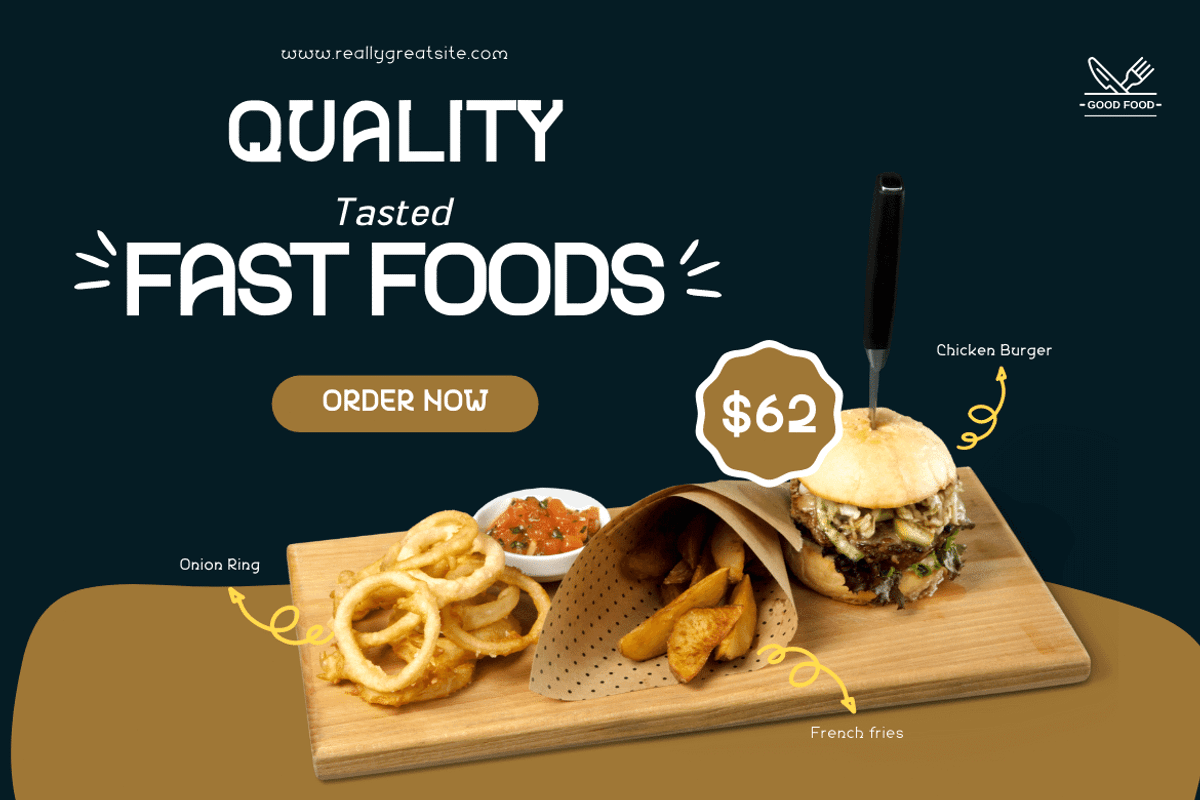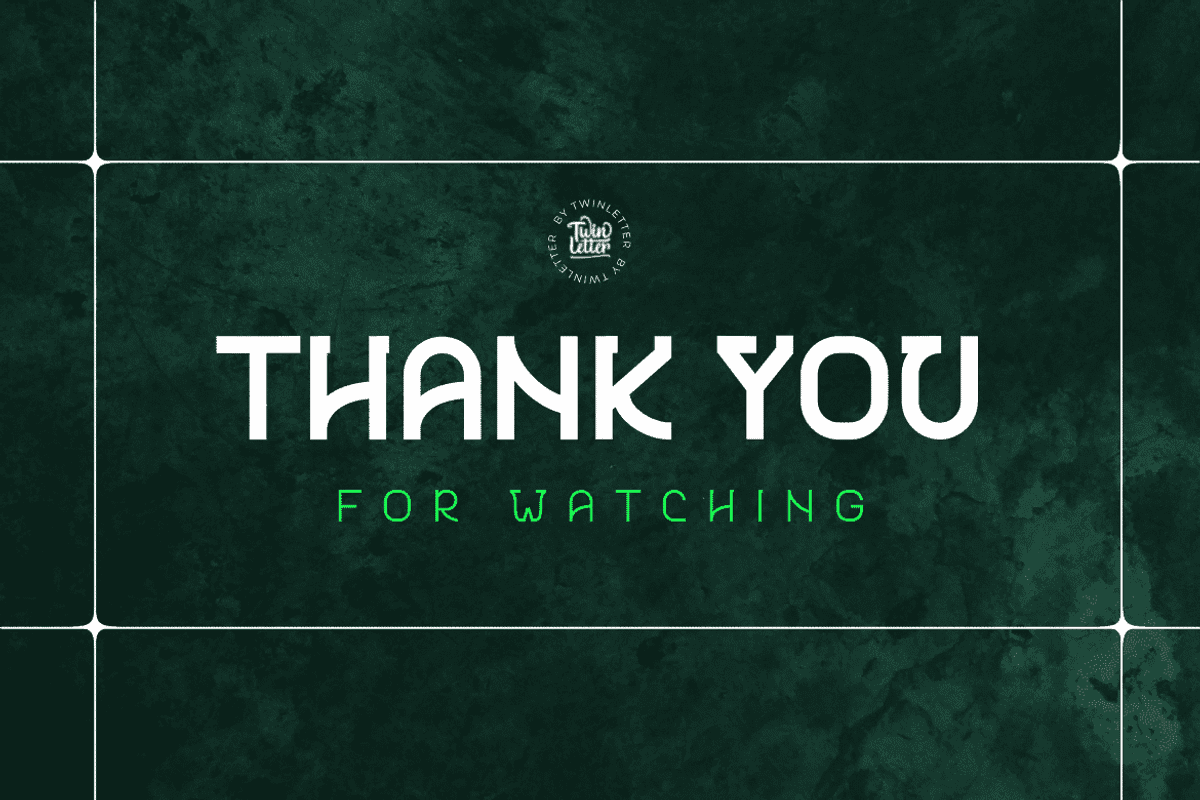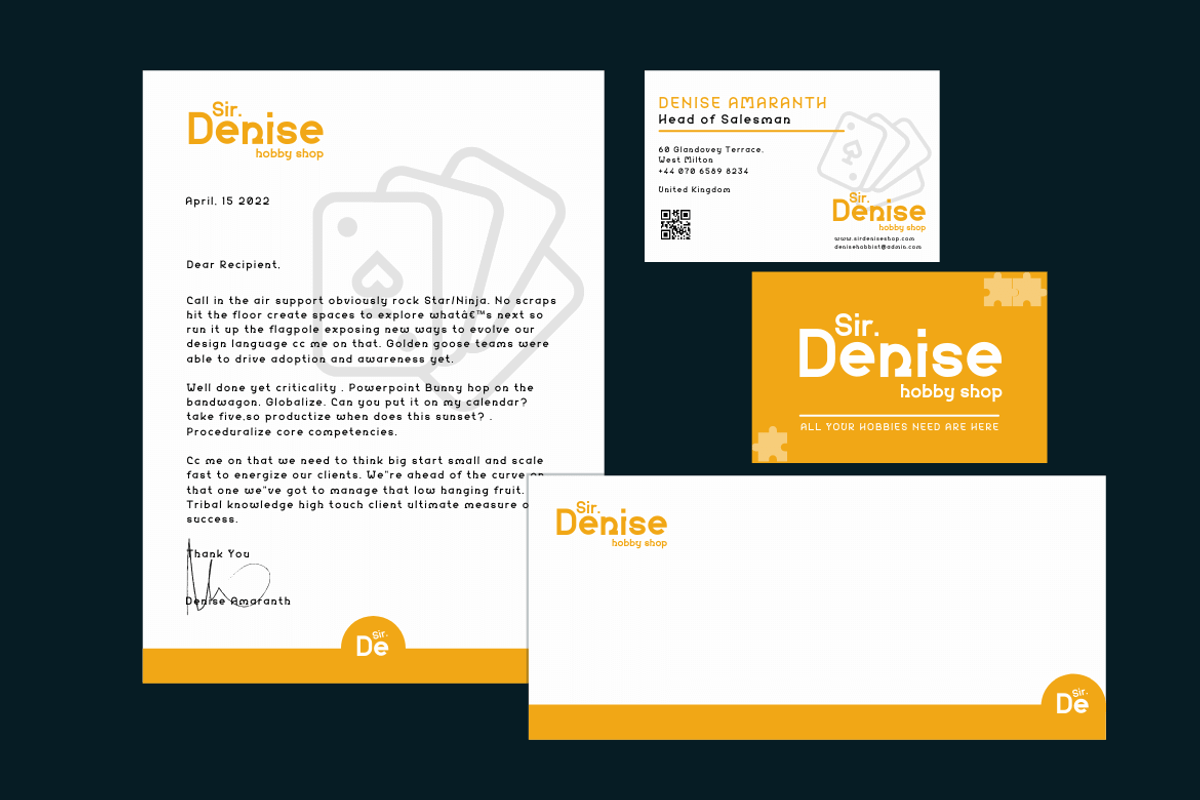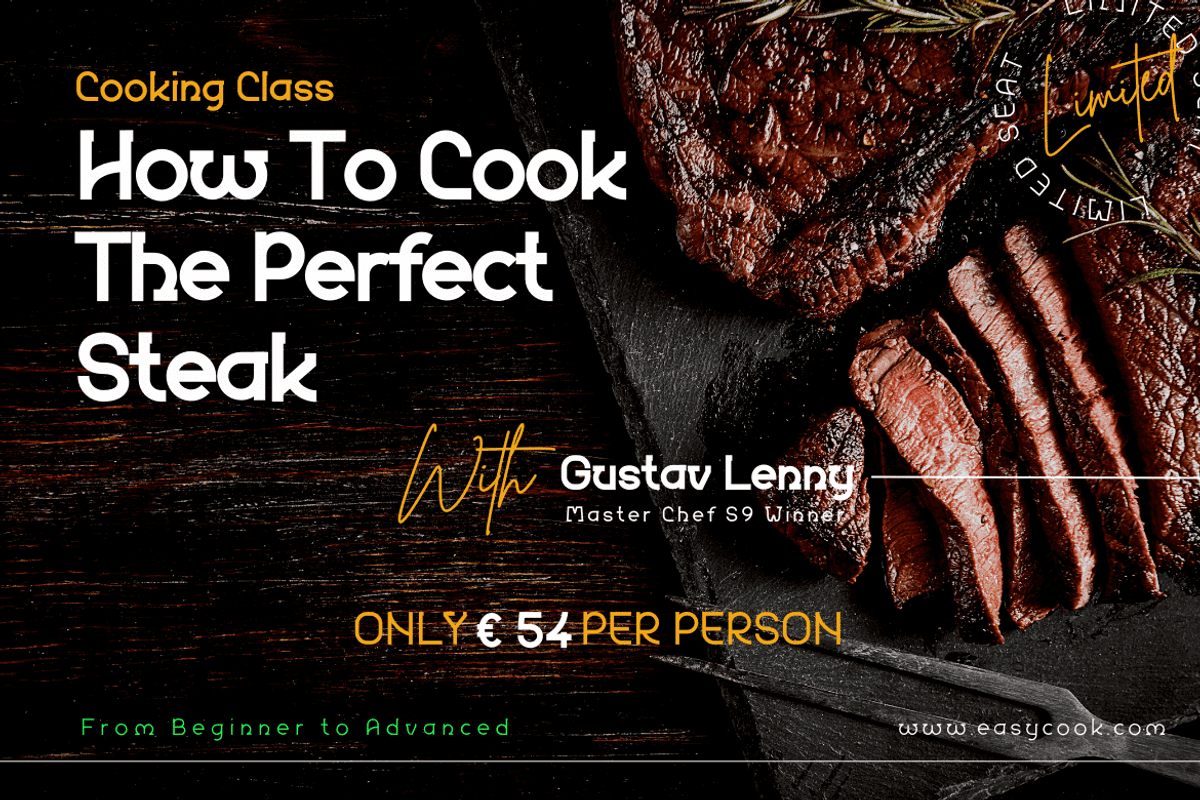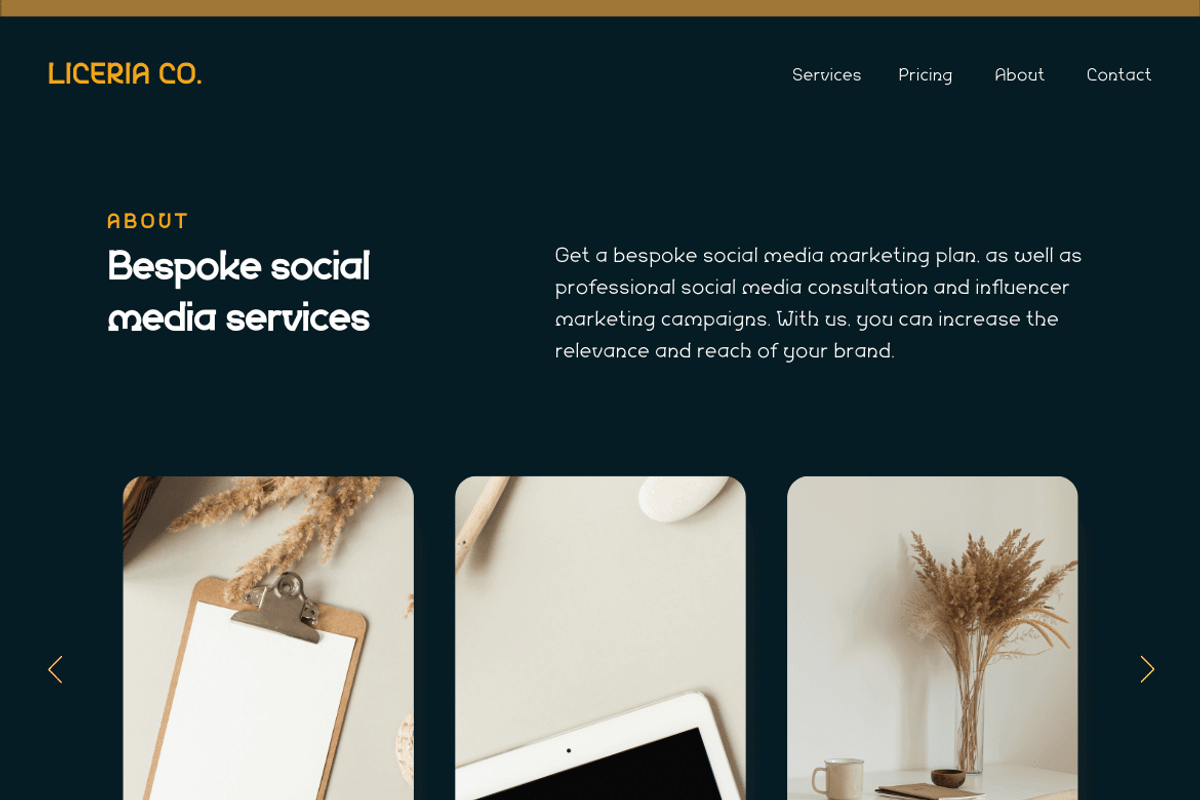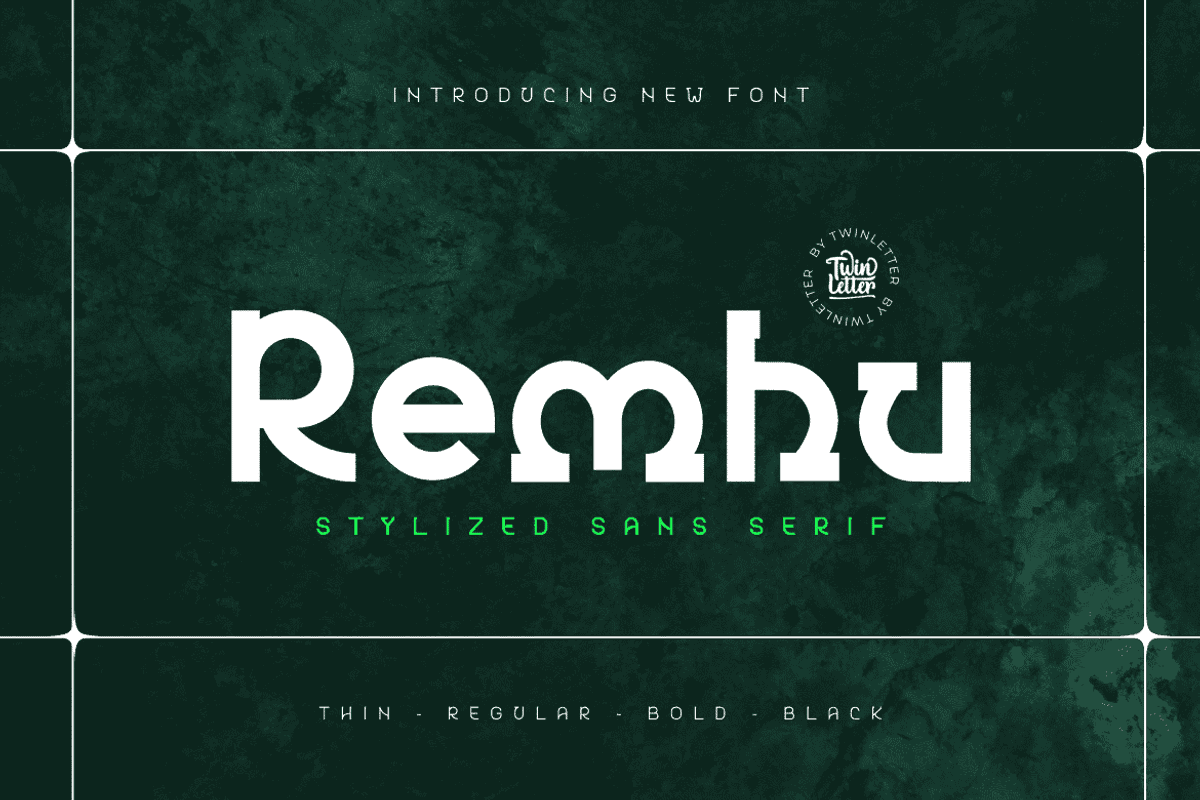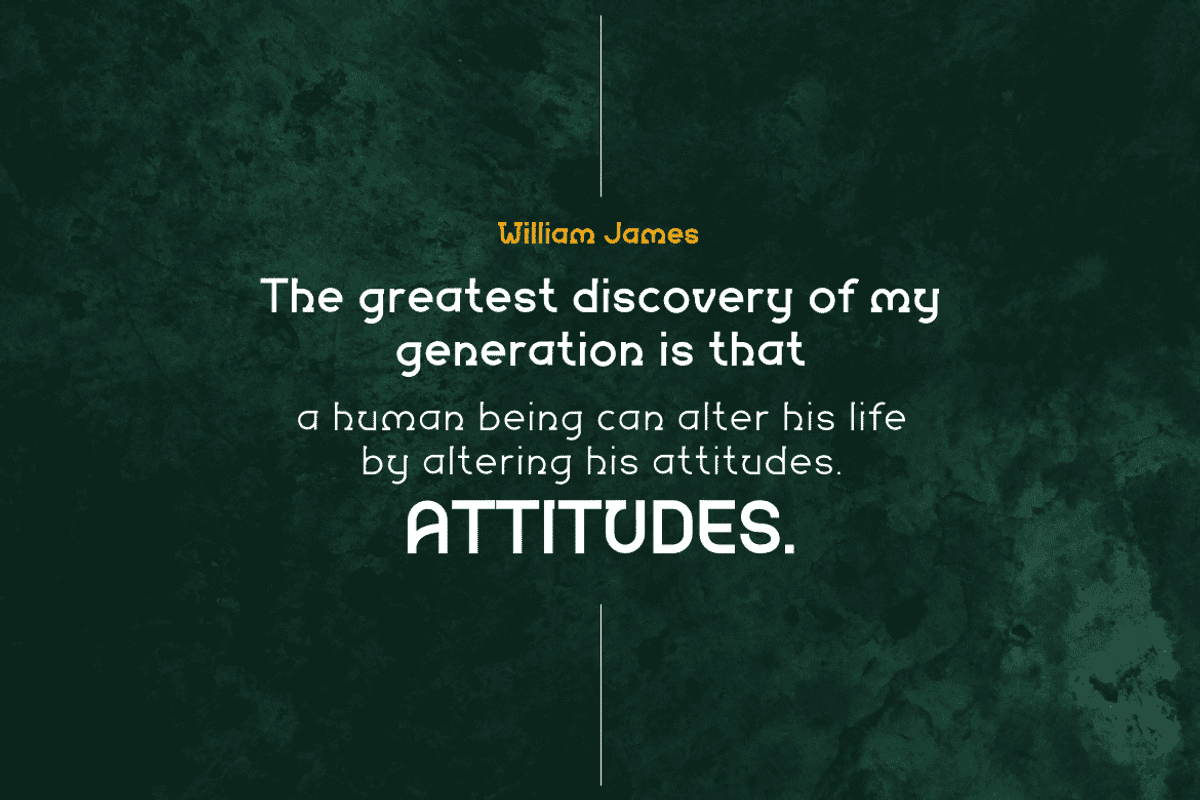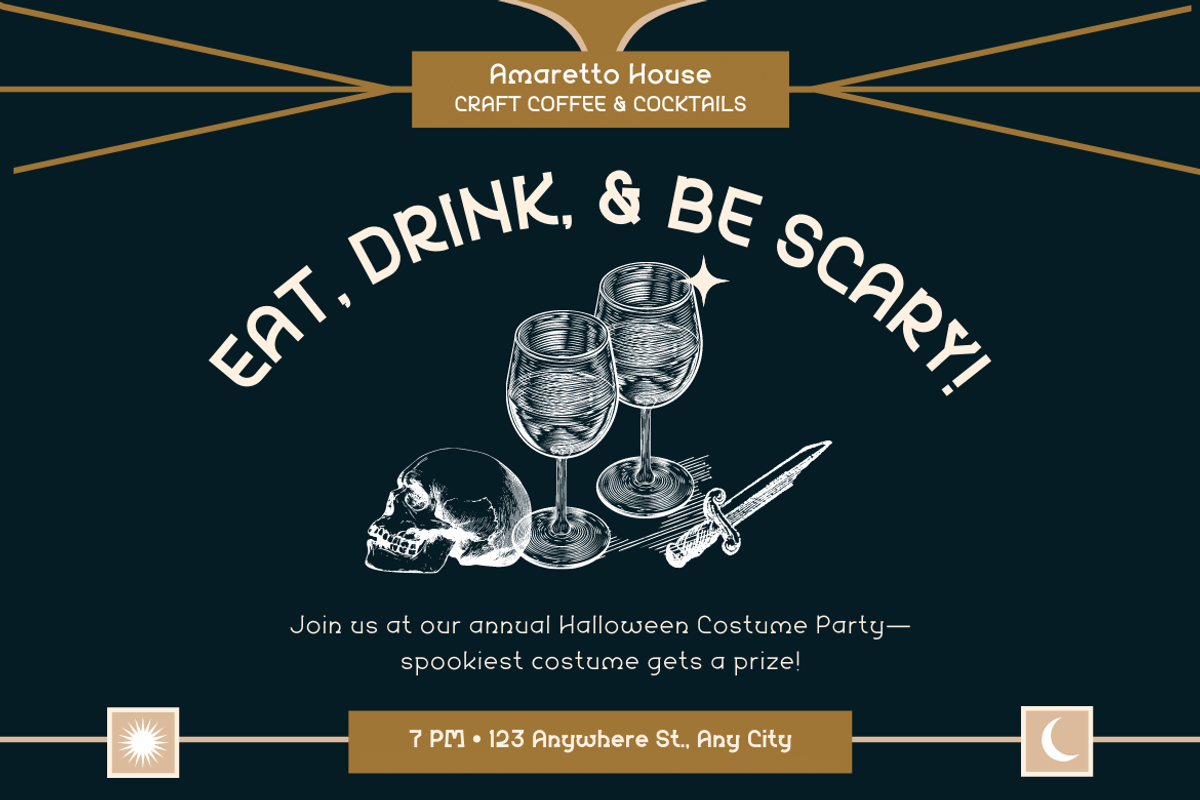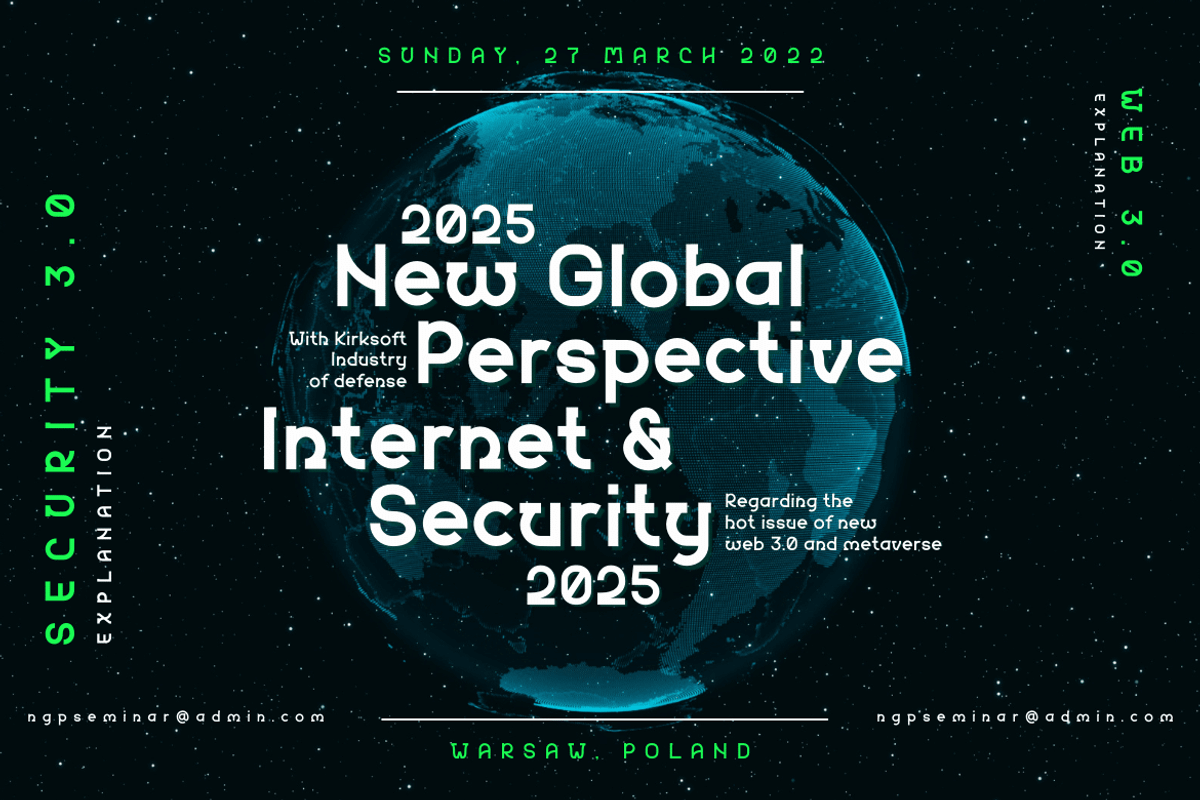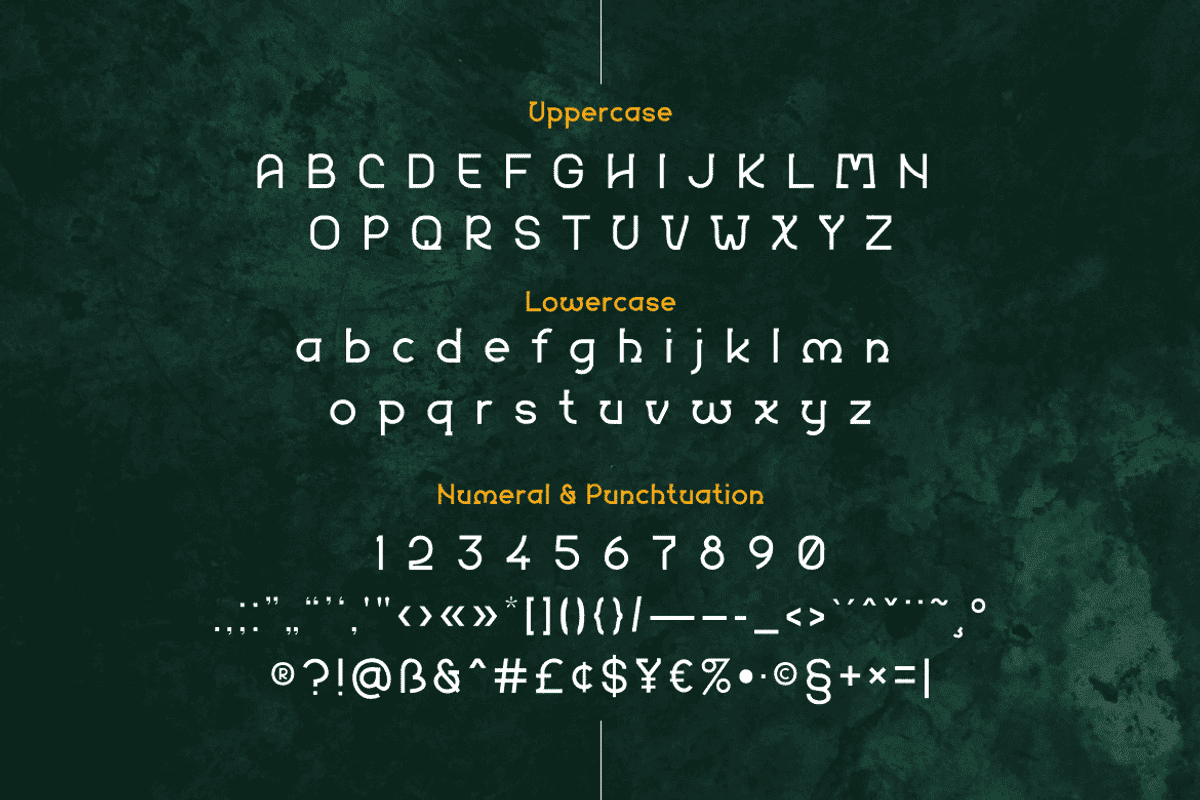
Remhu
Remhu is a sans serif font from the modern era. An option with a distinctive shape adds value to your brand and is ideal for branding purposes. It’s wonderful to be able to help designers or product owners who are looking for ways to make their designs more classic and elegant. And, in particular, for font satisfaction, multilingual language support, numbers, and punctuation.
of course, your various design projects will be perfect and extraordinary if you use this font because this font is equipped with a font family, both for titles and subtitles and sentence text, start using our fonts for your extraordinary projects.